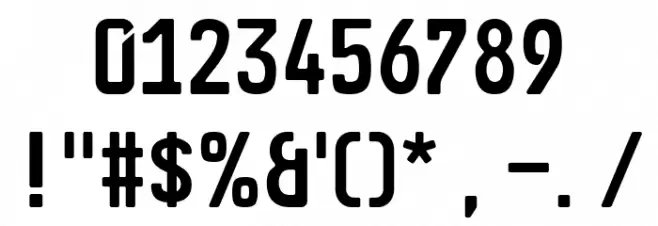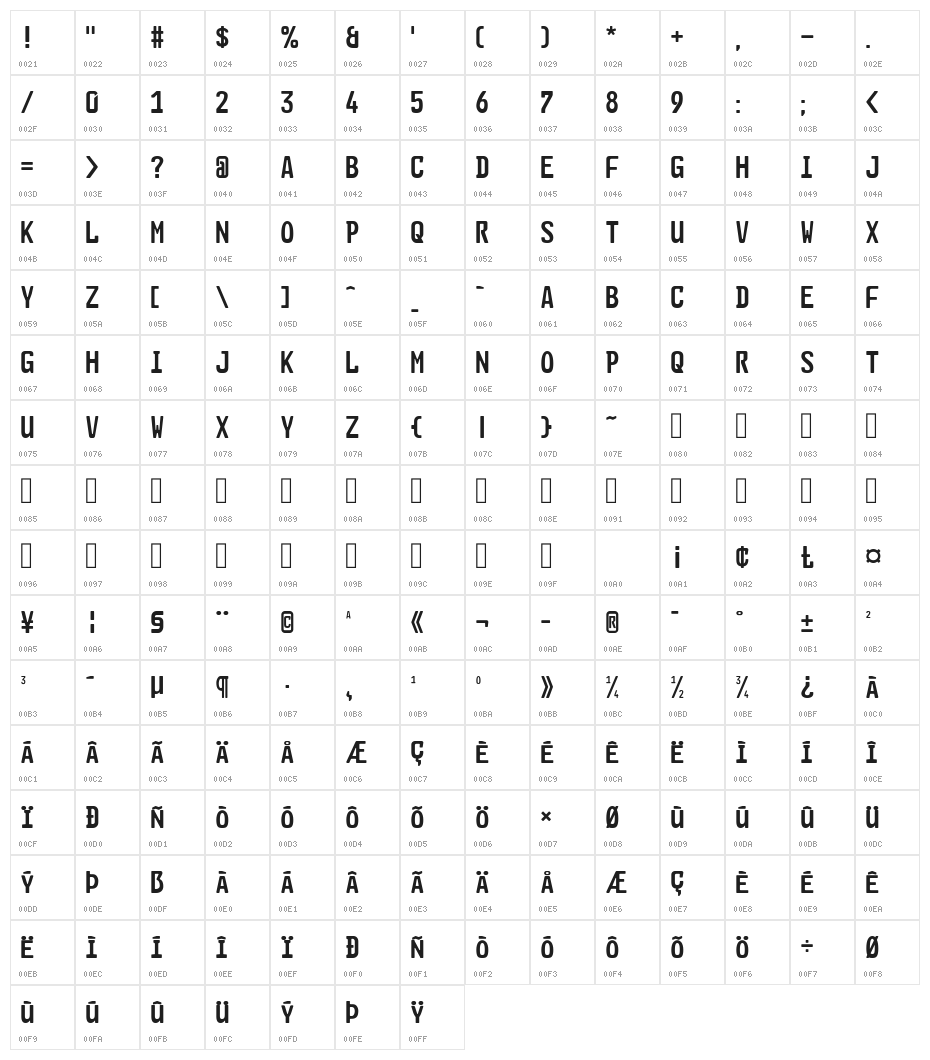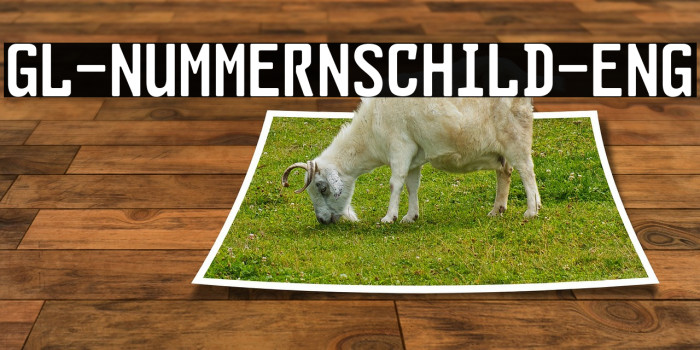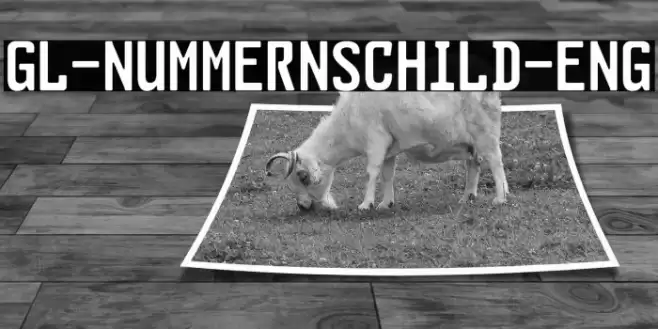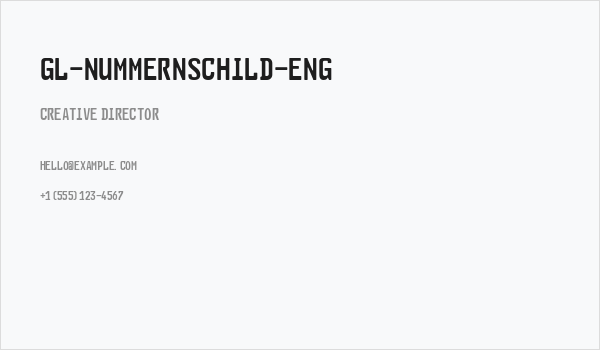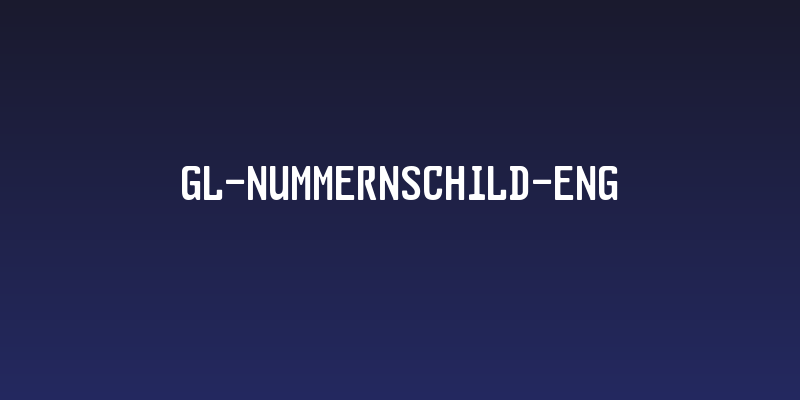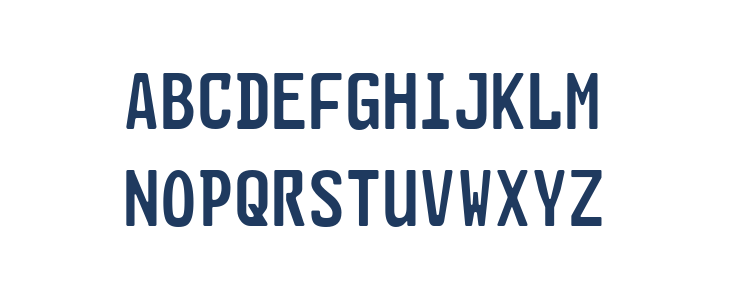
GL-Nummernschild-Eng Font
GL-Nummernschild-Eng Description
This font features a bold, geometric sans-serif style with a strong presence. The characters are uniform in width, providing a monospaced appearance that is both modern and functional. The uppercase letters are slightly condensed, giving a compact and efficient look, while the lowercase letters maintain a consistent height that complements the uppercase. The numerals are clear and easily distinguishable, making them suitable for display purposes. Special characters are designed with the same boldness, ensuring they stand out. The overall design is clean and minimalistic, making it ideal for applications where clarity and readability are paramount.
| Use Case | Headlines, Logos, Signage |
| Proposed Projects | Ideal for use in signage, license plates, digital displays, and branding materials where clarity is essential. |